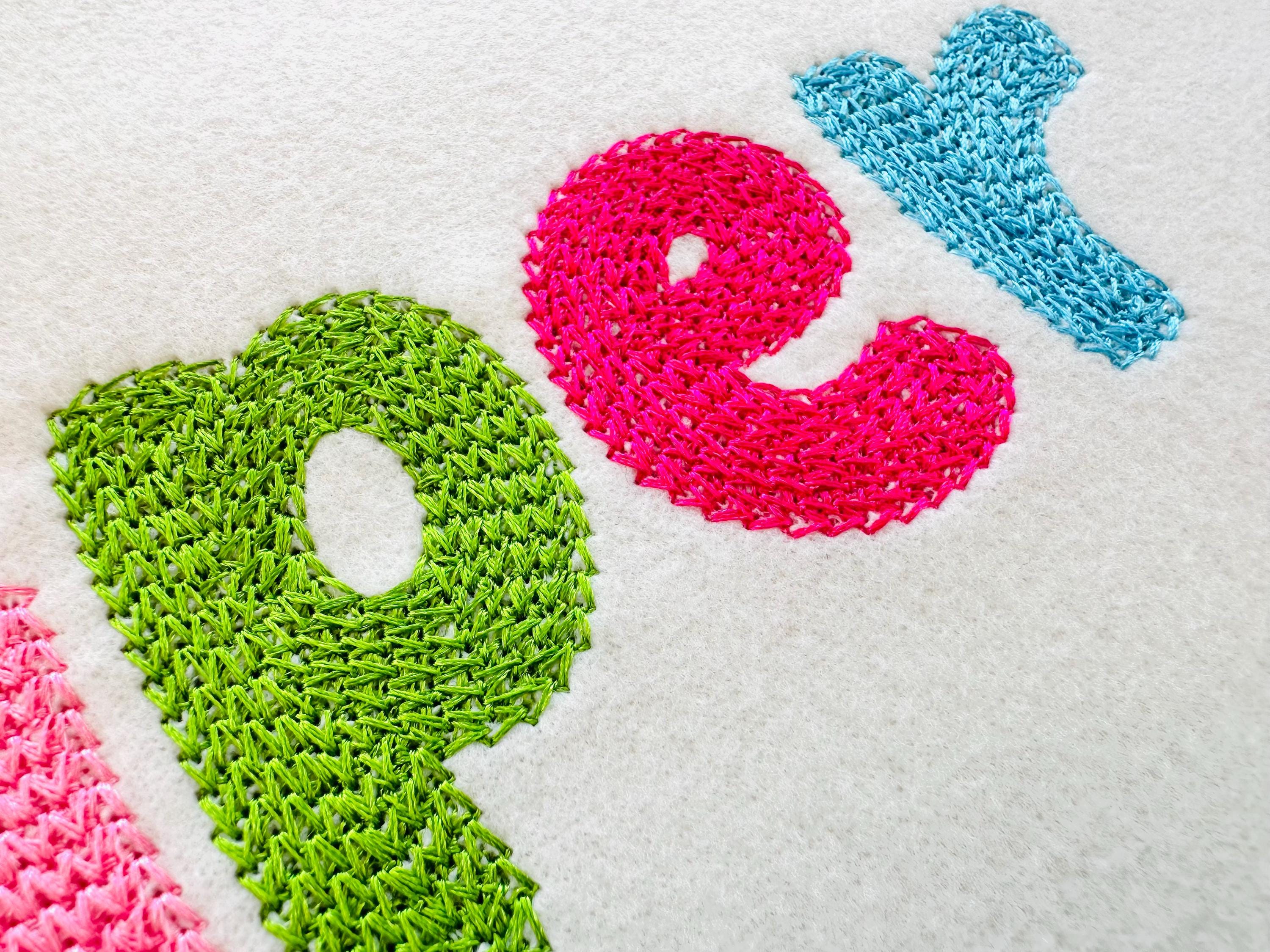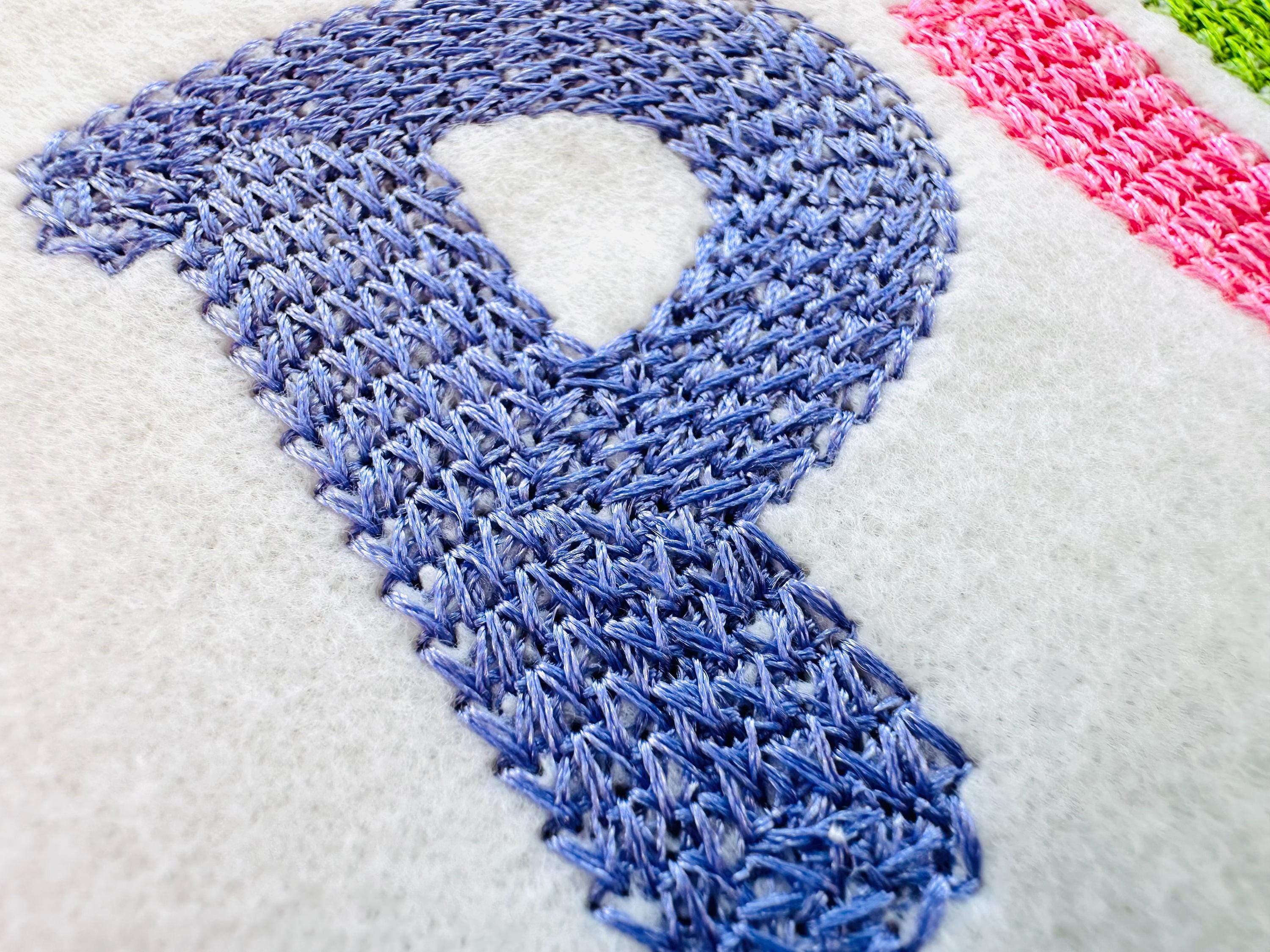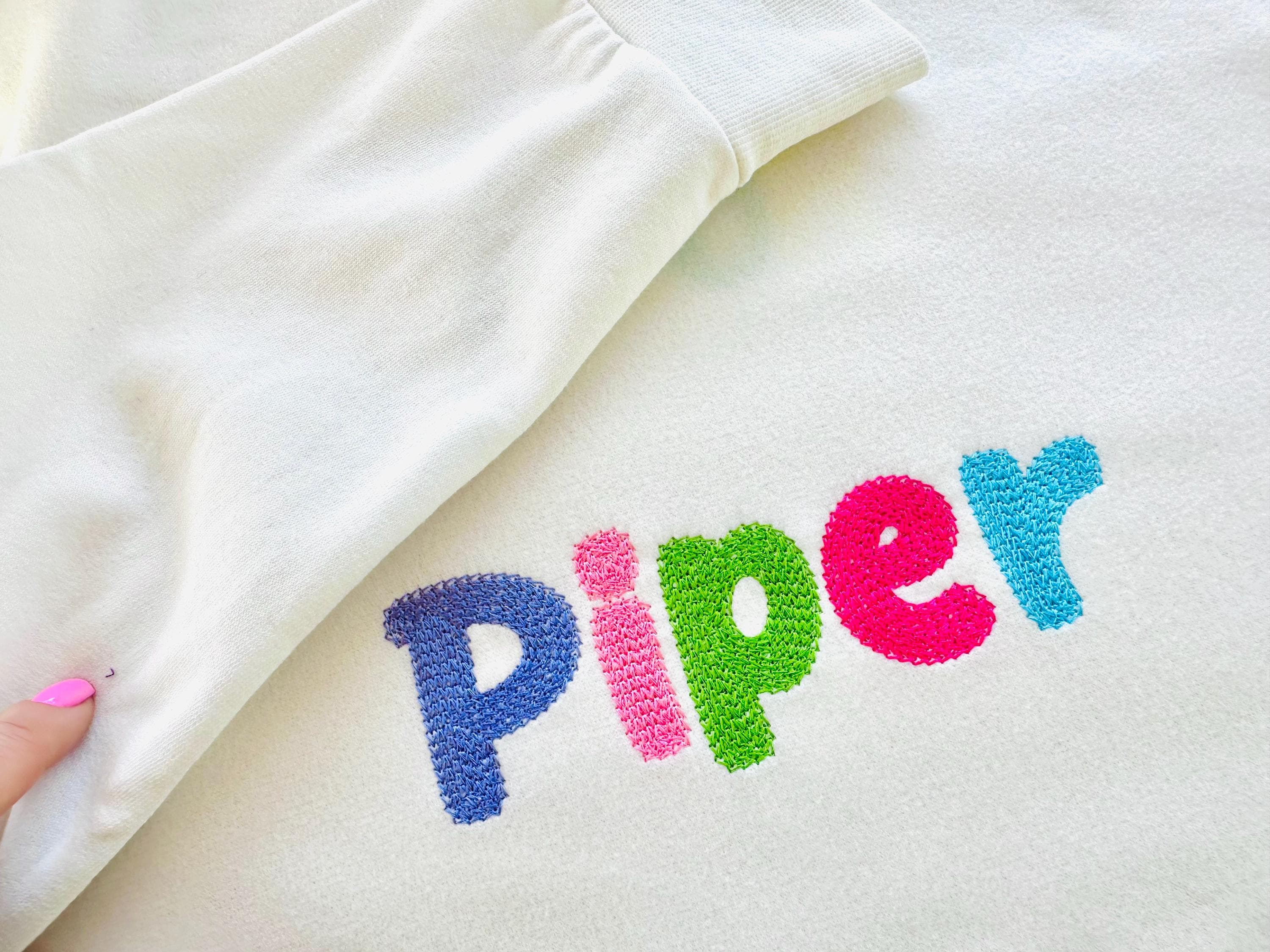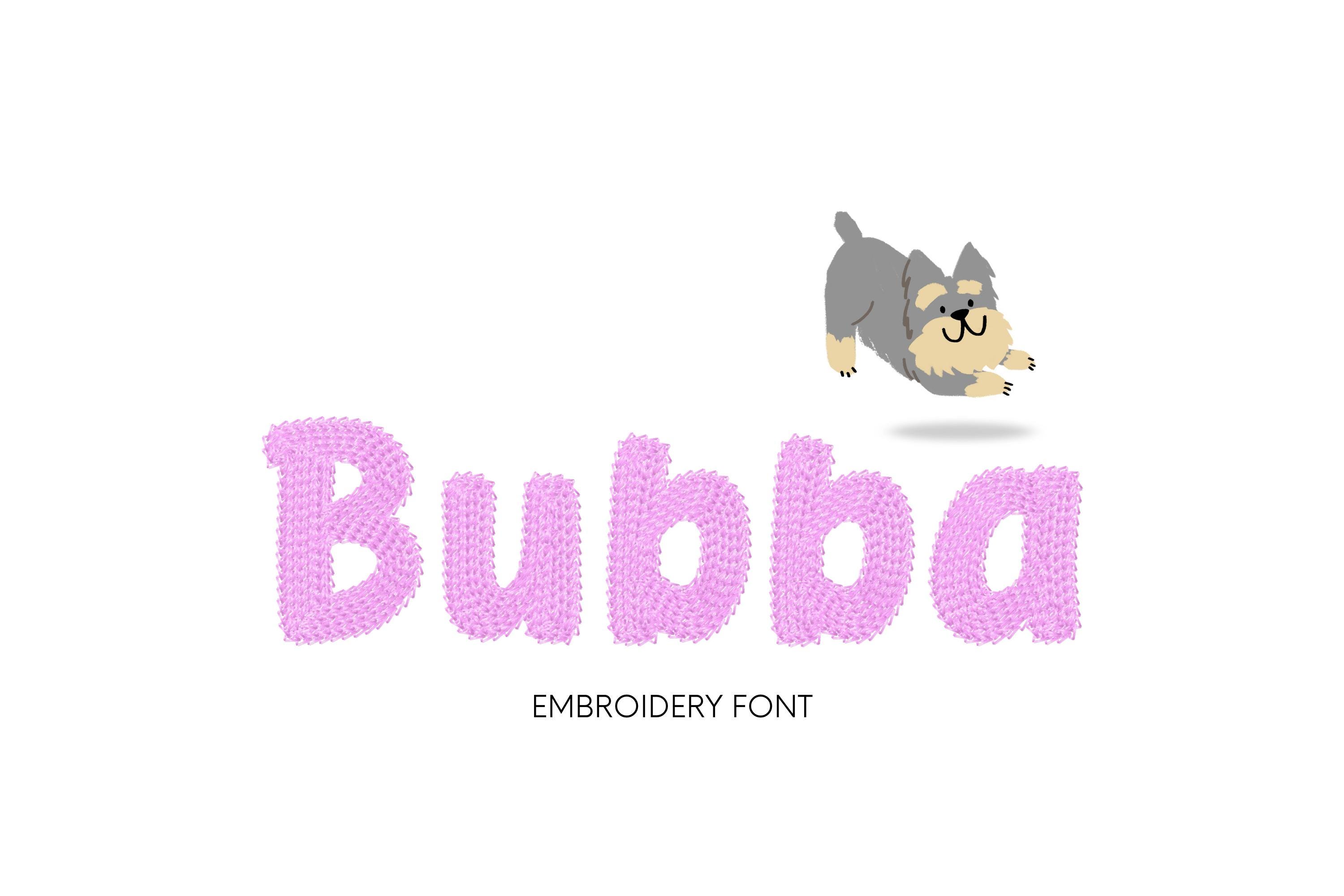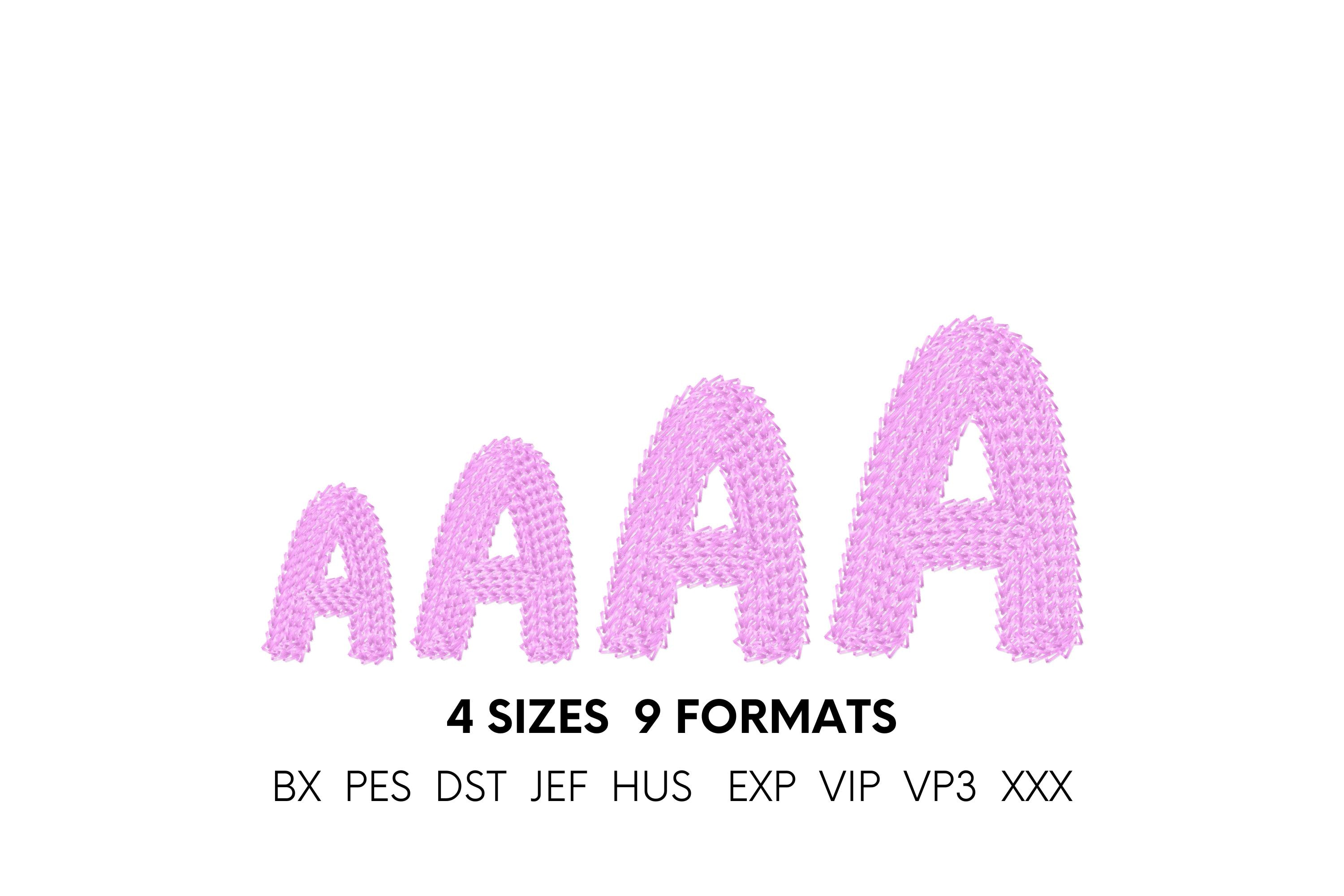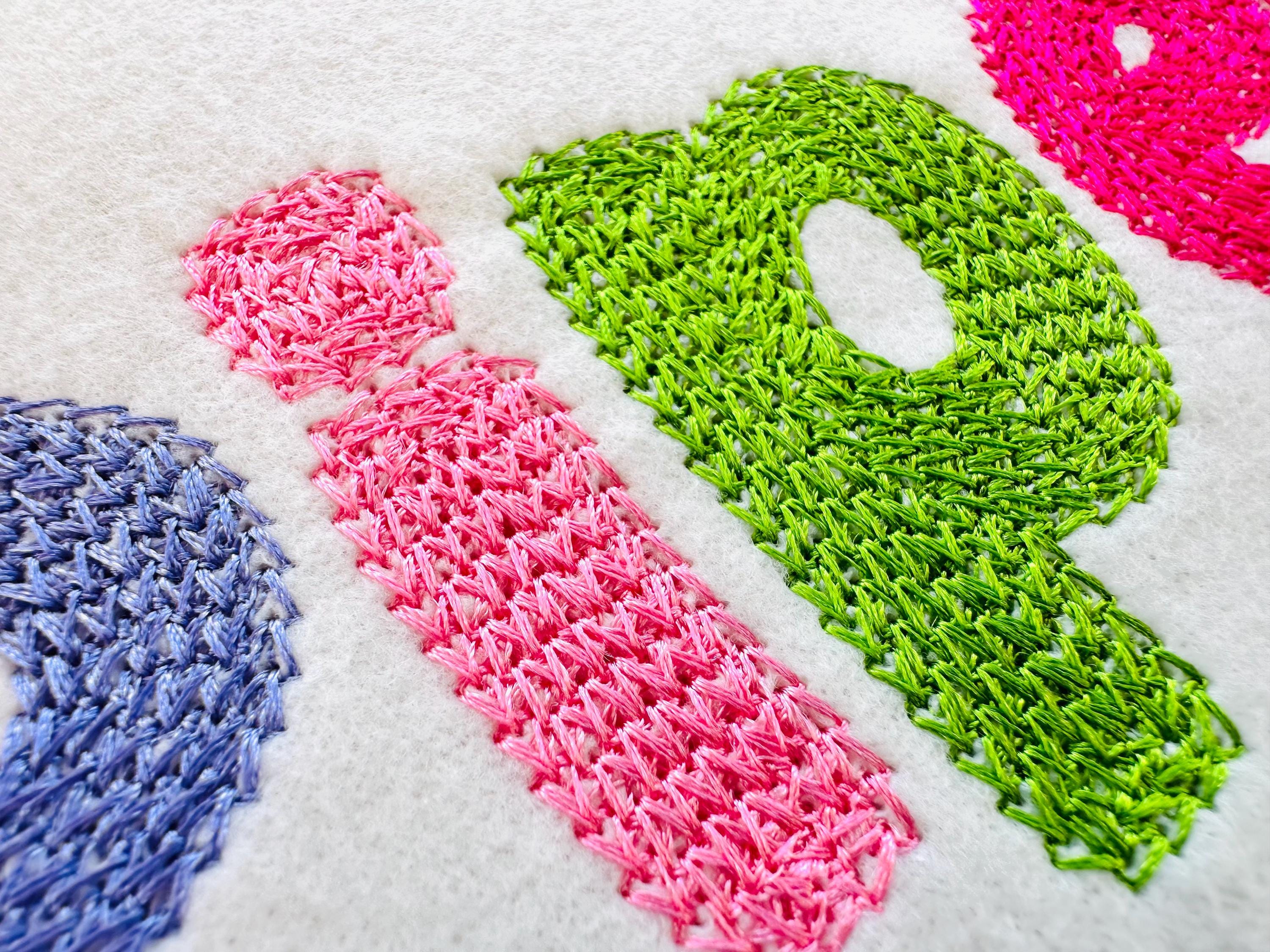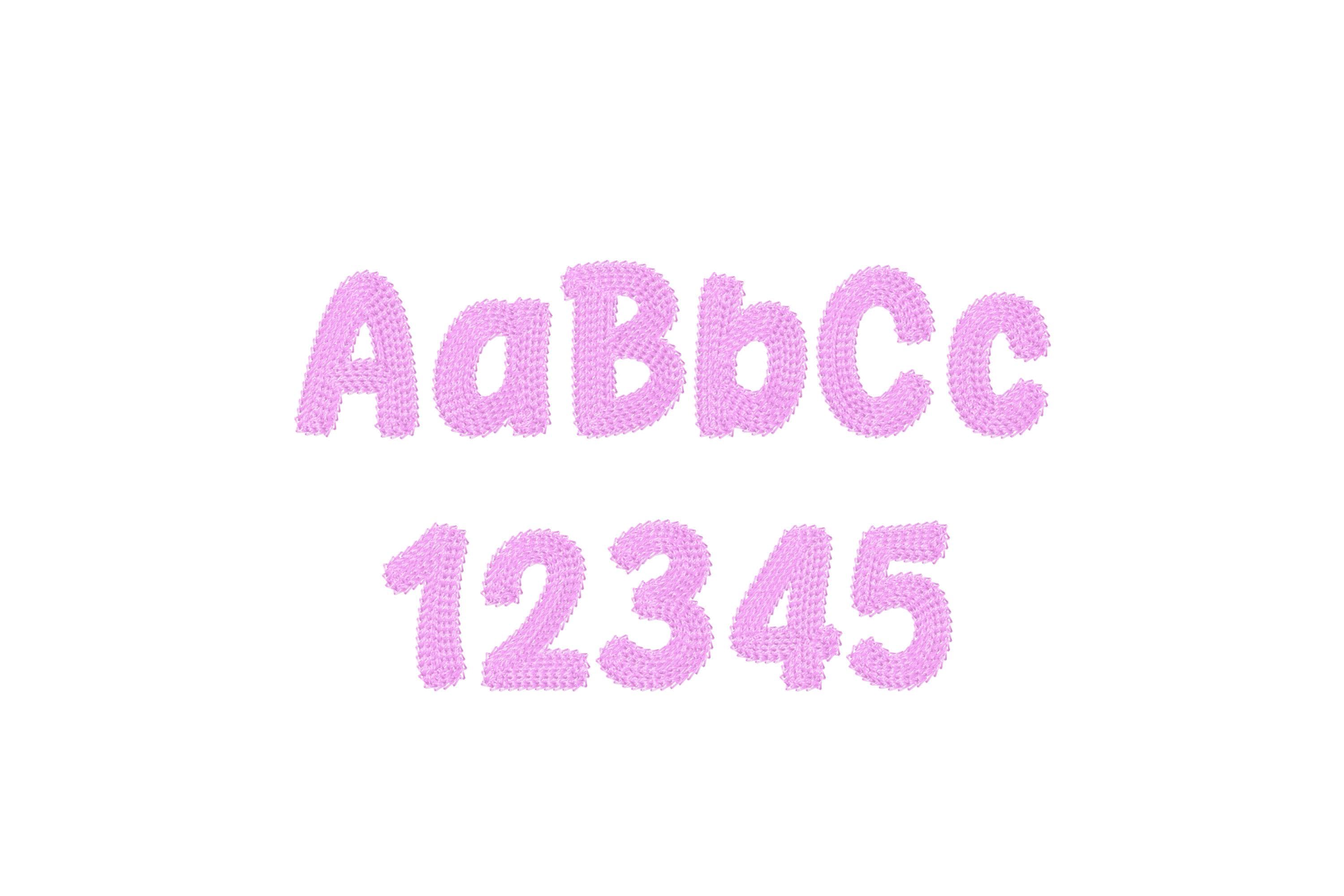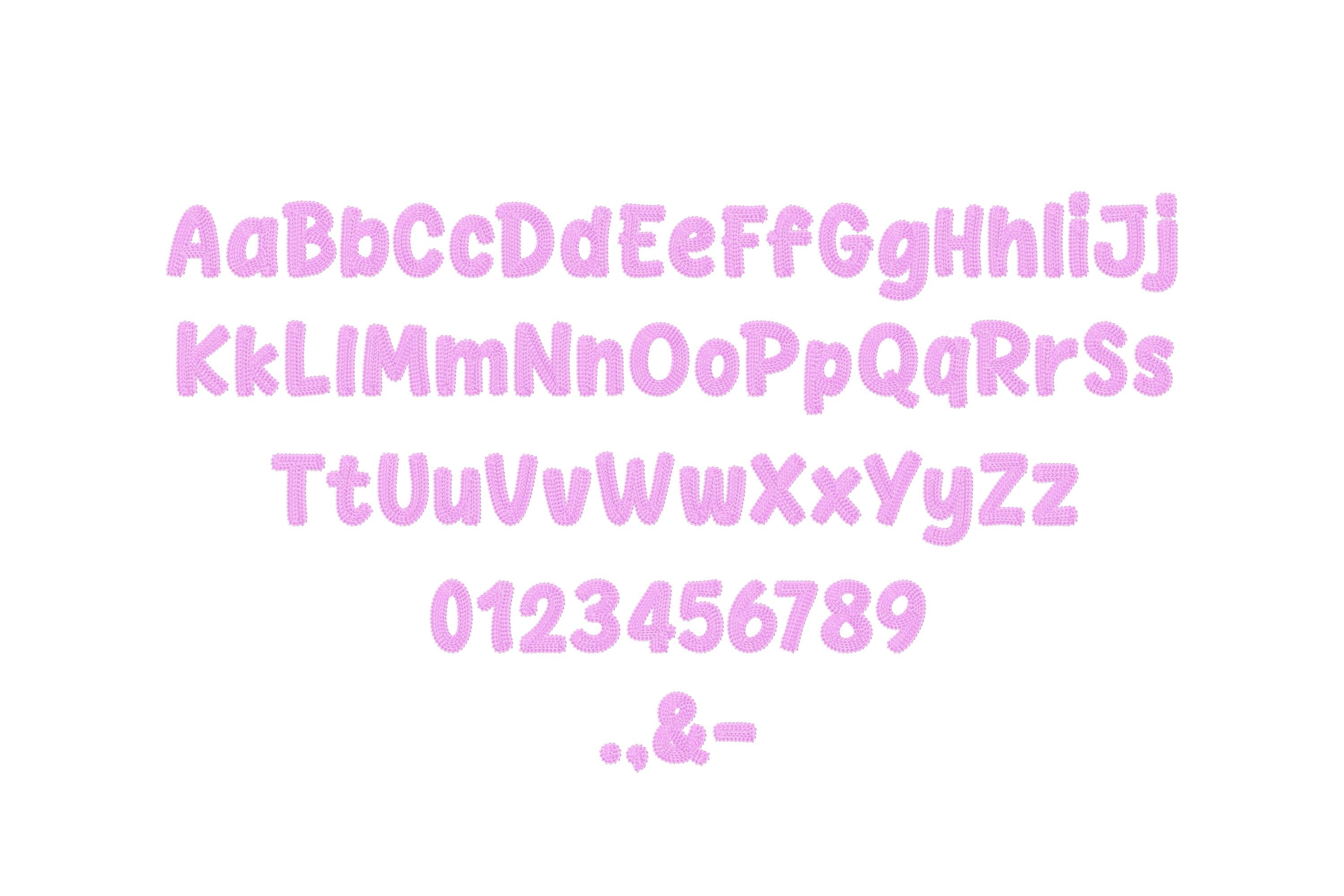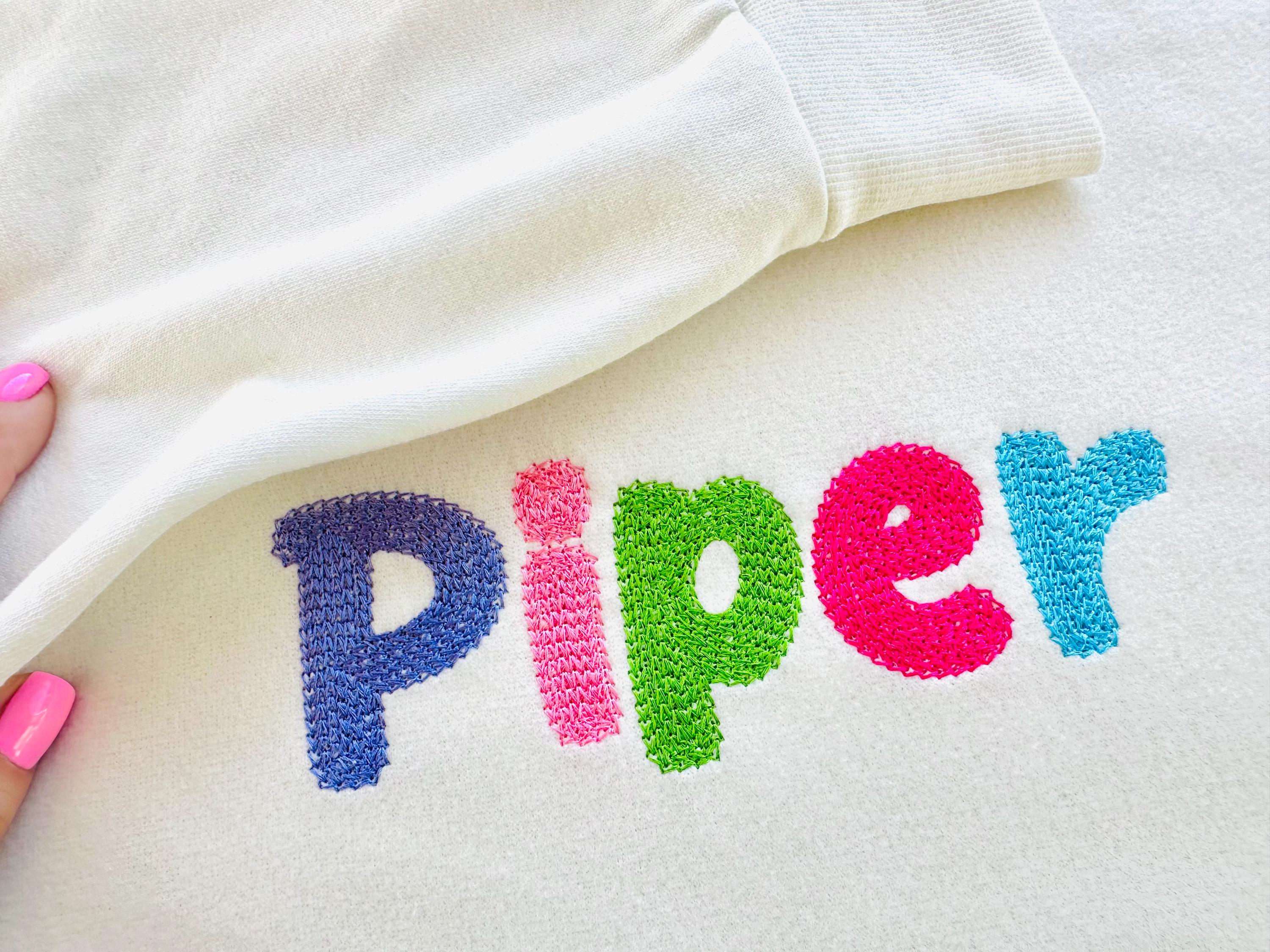
Small Light Fill Chain Font Fill hand stitch effect Chain Block Font machine embroidery designs alphabet letters numbers 1.4 up 2.5inch BX
Mini Chain Font hand stitch effect Chain Block Font machine embroidery designs alphabet letters numbers monogram sizes 1.4 up to 2.5 inches, BX
The whole alphabet Aa-Zz uppercase and lowercase, numbers 0-9, and punctuation.